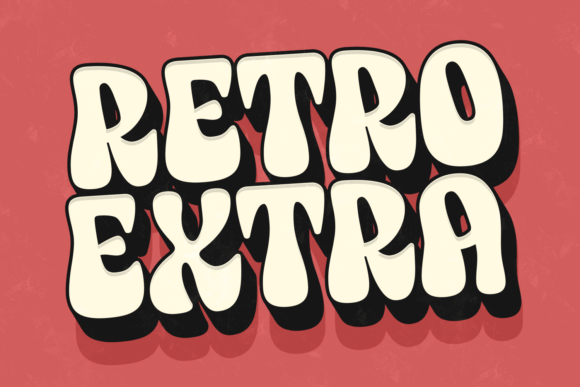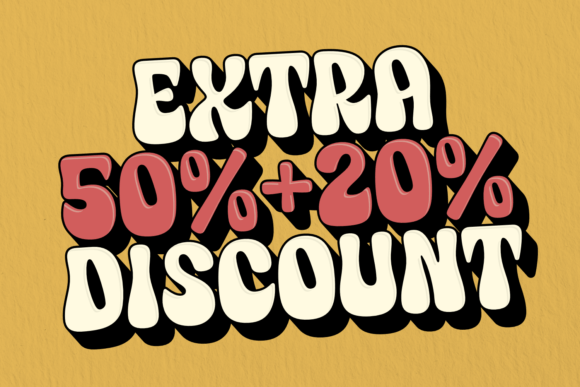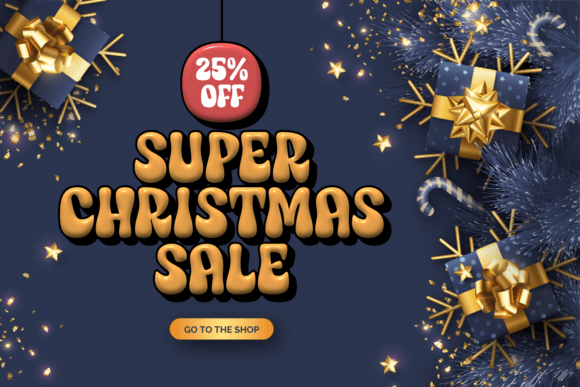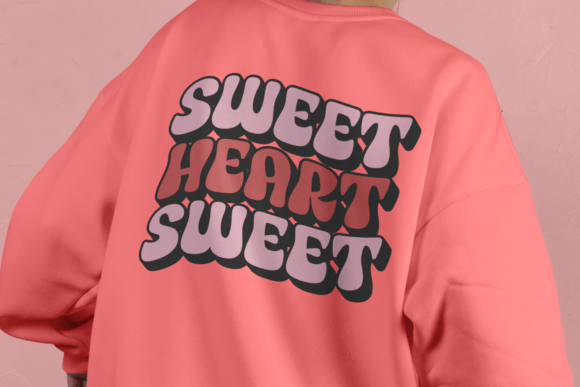
Retro Extra Font
About the Retro Extra Font
The Retro Extra Font offers a perfect balance of form and function for your design needs. Retro Extra is a thick and joyful display font. Create eye-catching typography designs with this beautiful and cheerful typeface that will make any creation stand out! You can use it for posters, cards, websites, apparel, headlines, titles, advertisements, branding, and more.
Retro Extra’s bold, playful personality makes it ideal for headlines, posters, and short impactful text in branding materials. It excels in creating eye-catching displays for products or events that need a vibrant, retro feel. However, its thick weight and large x-height make it less suitable for body text or UI elements where readability at smaller sizes is crucial.
Pairing Retro Extra works best with a clean, contrasting sans-serif like Open Sans for body copy, or a more geometric sans-serif like Futura for a modern feel. For a vintage touch, consider pairing it with a classic serif like Garamond or a slightly more informal script font.
The overall aesthetic lends itself to projects emphasizing fun, nostalgia, or a retro-inspired aesthetic. Brands targeting a younger demographic or those associated with entertainment, food, or fashion would find it particularly effective.